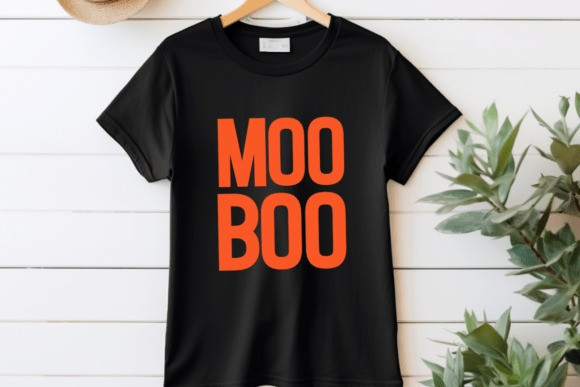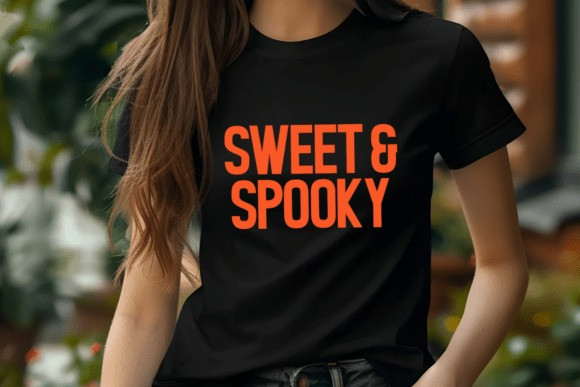
Haunt People Font
Haunt People Font is a modern sans-serif font with a stunning, cool feel. It’s perfect for logos, t-shirts, mugs, invitations, greeting cards, branding, posters, packaging, signs, cutting boards, printables, crafting, and other designs. Whatever your creative needs are, Haunt People is the perfect choice for a modern yet simple design!